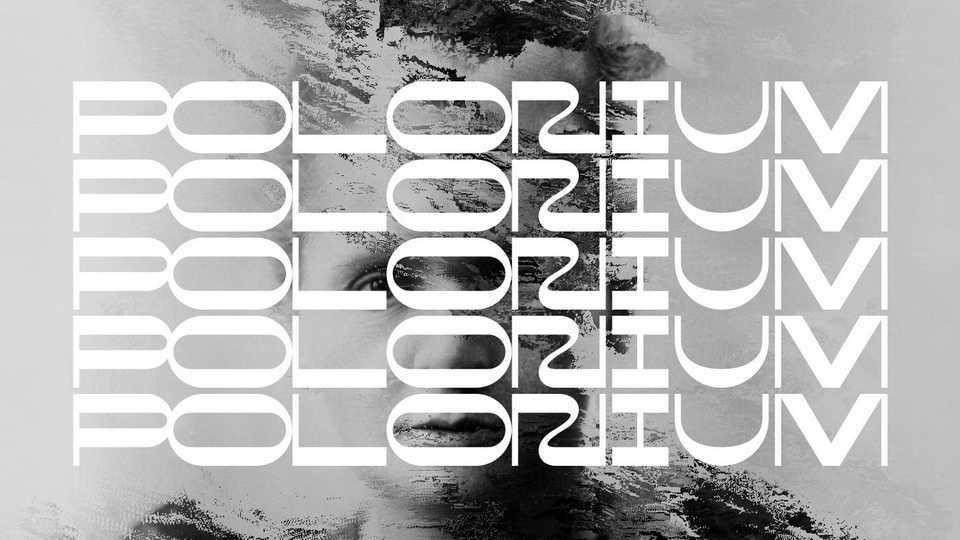
Download Polonium font, a contemporary display typeface with reverse contrast and bold styles, inspired by the story of polonium discovery in 1898 by Marie and Pierre Curie.
Designer: Alexey Atapin